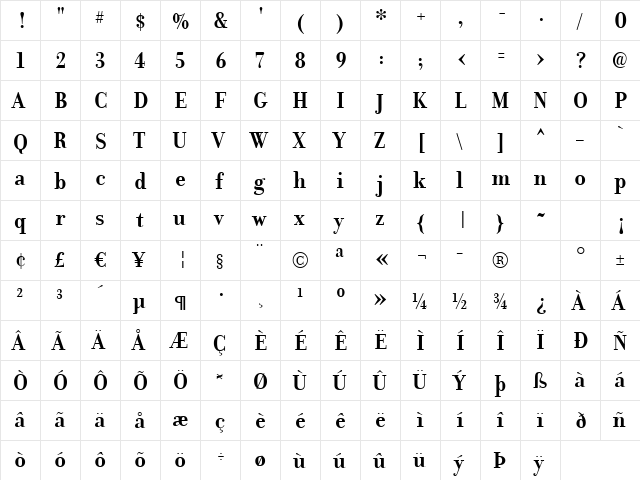
Donatora Display Bold Font Preview
Donatora Display Bold
Donatora Display Bold Font Details
Design Context for Donatora Display Typeface
Donatora Display is built around its visual character rather than neutral utility — its distinctive forms are designed to make an impression at display sizes. Its bold stroke weight gives it real presence on the page.
Font Pairing: Pair with a clean neutral sans-serif for body copy to let Donatora Display's character lead without overwhelming the composition.
Pro Tip: Use Donatora Display exclusively at display sizes — it was designed to be seen, not read at length. Let a neutral companion handle body copy.